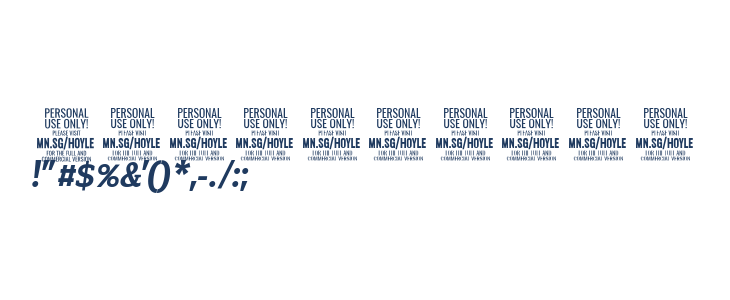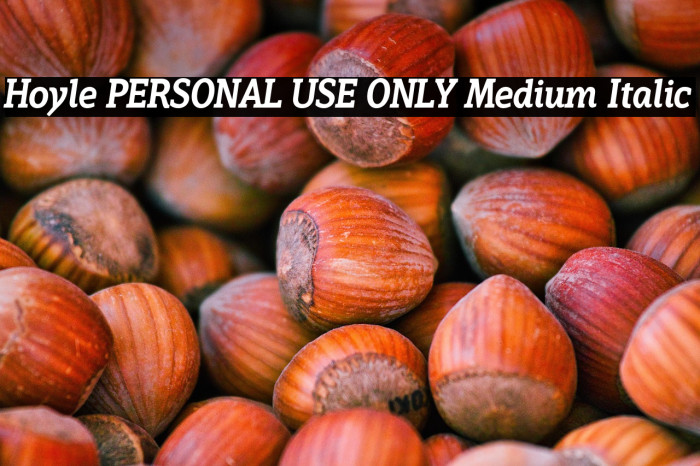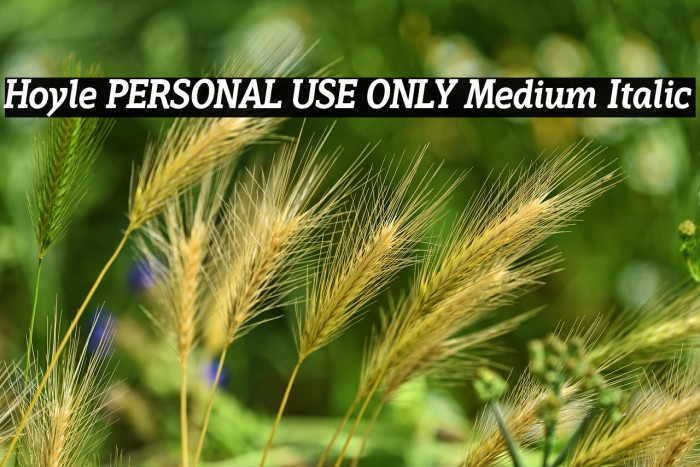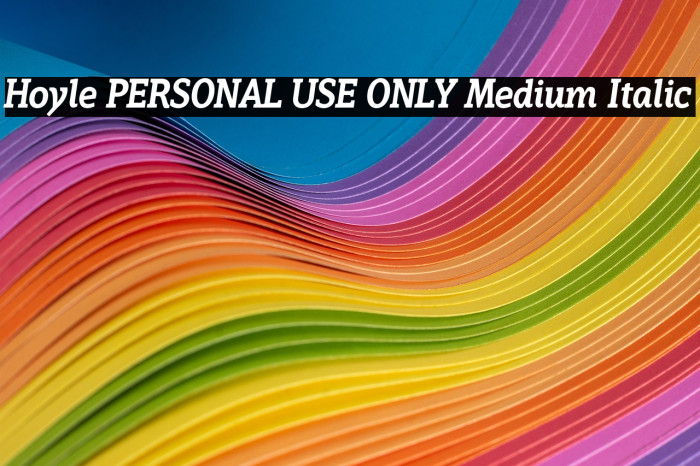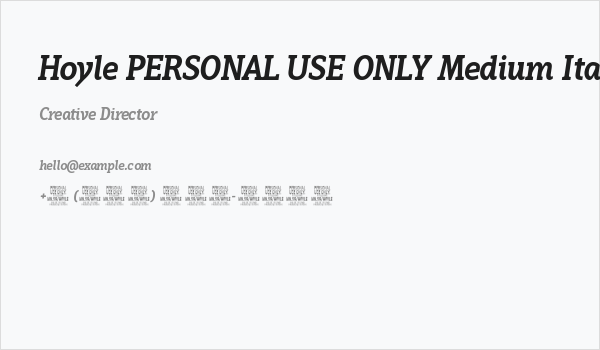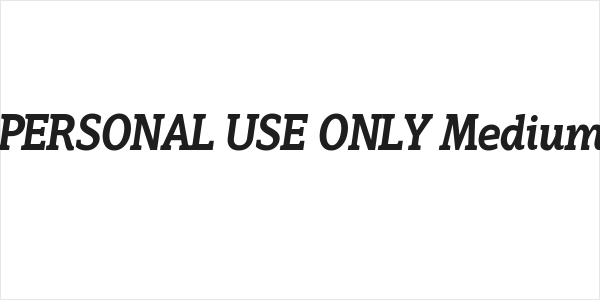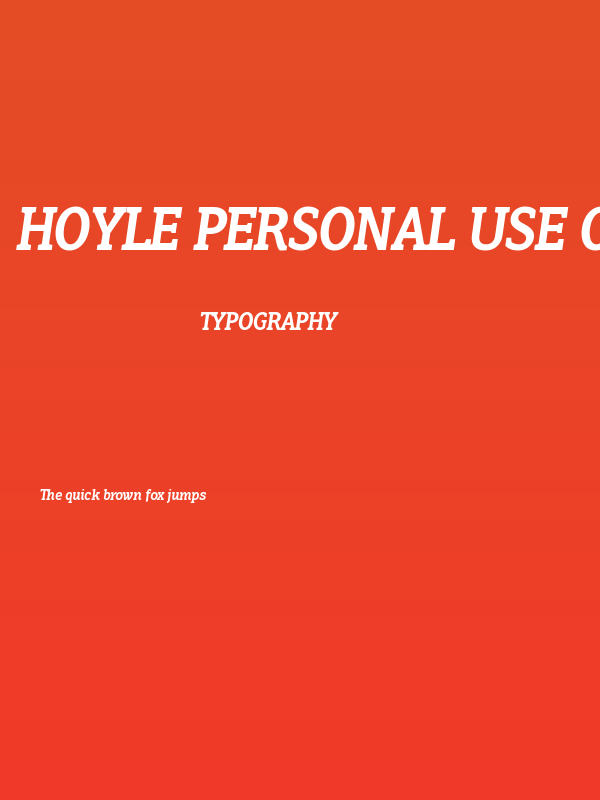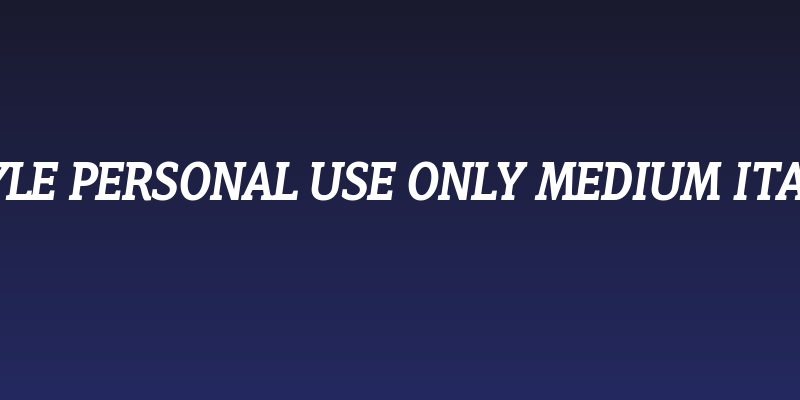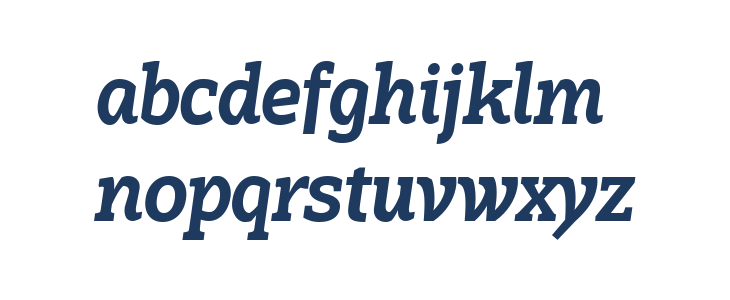
Hoyle PERSONAL USE ONLY Medium Italic Font
Hoyle PERSONAL USE ONLY Medium Italic Description
This font features a classic serif style with a modern twist, characterized by its medium weight and italicized form. The letters have a slight forward slant, adding a dynamic and elegant feel. The serifs are pronounced yet refined, providing a traditional touch while maintaining readability. The uppercase letters are bold and commanding, while the lowercase letters are more fluid and graceful. The numerals and special characters are consistent with the overall style, offering a cohesive look. This font is versatile, suitable for both digital and print media, and can enhance the visual appeal of various design projects.